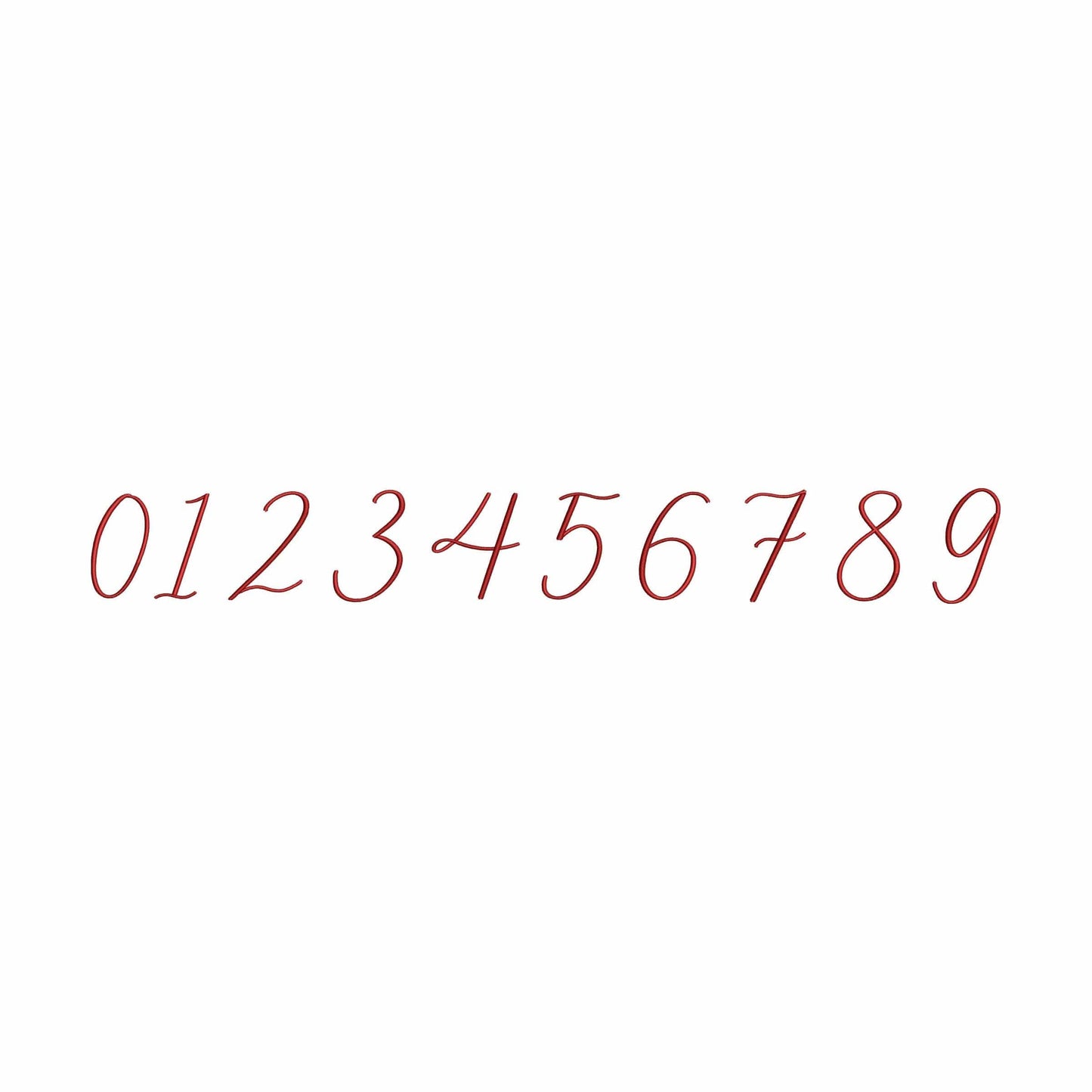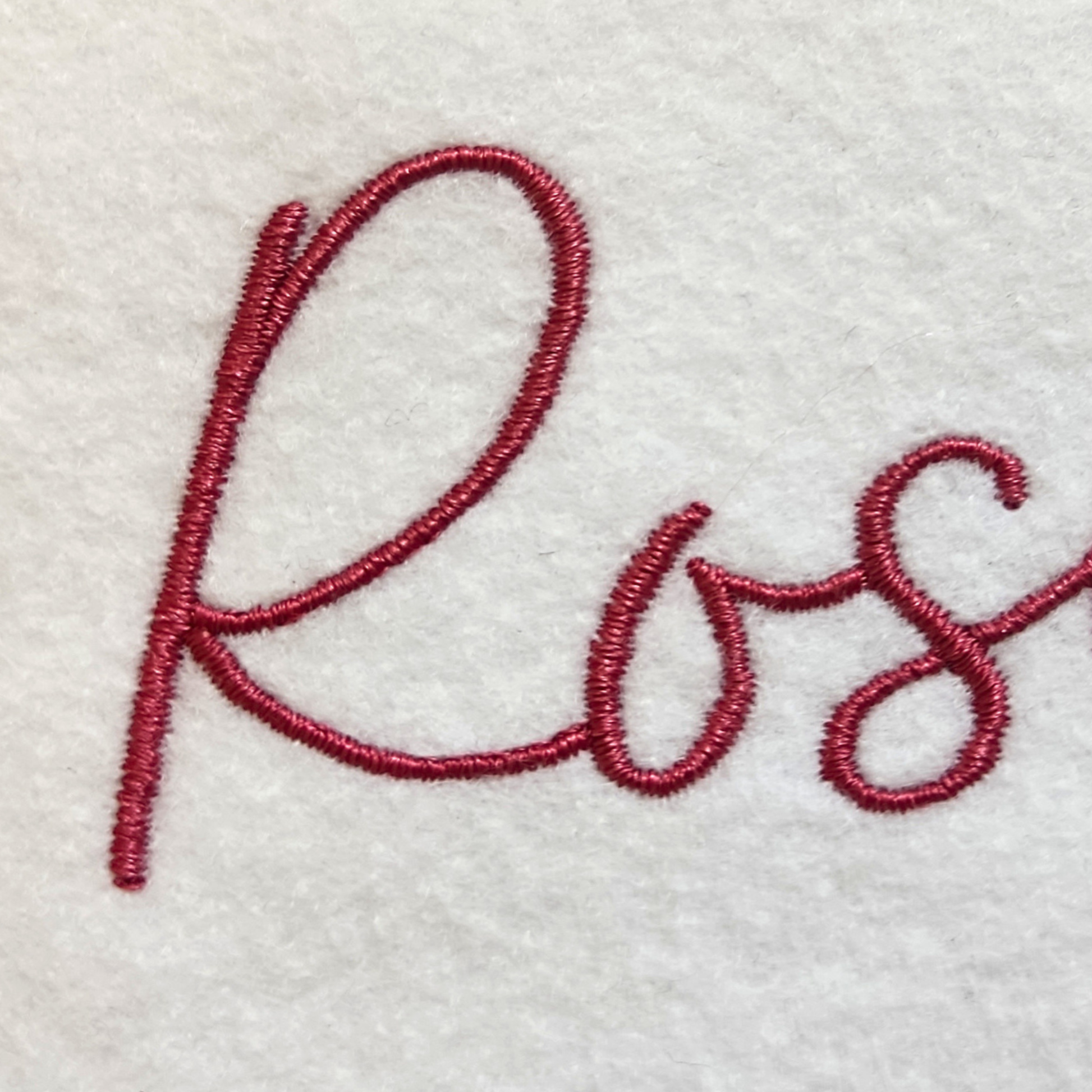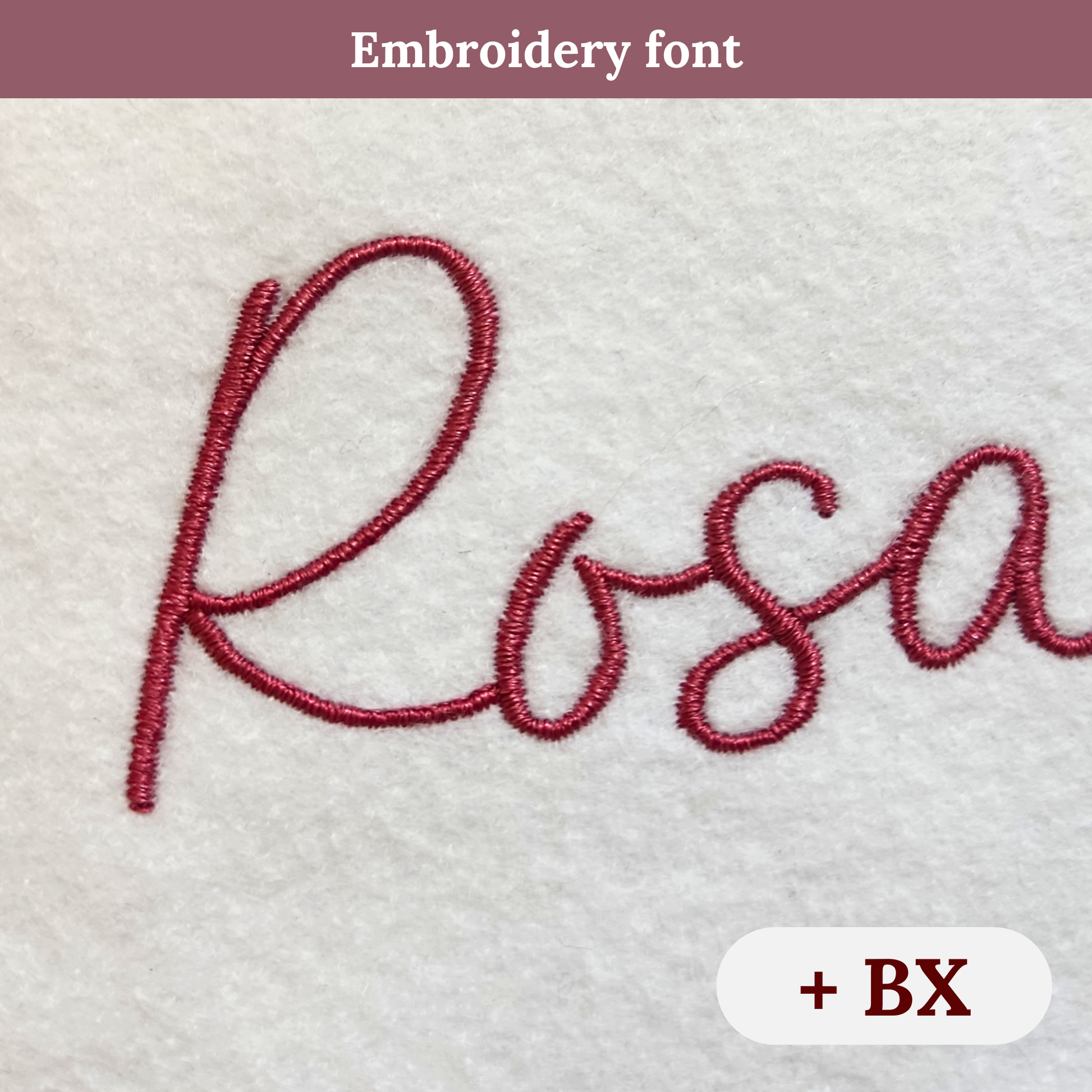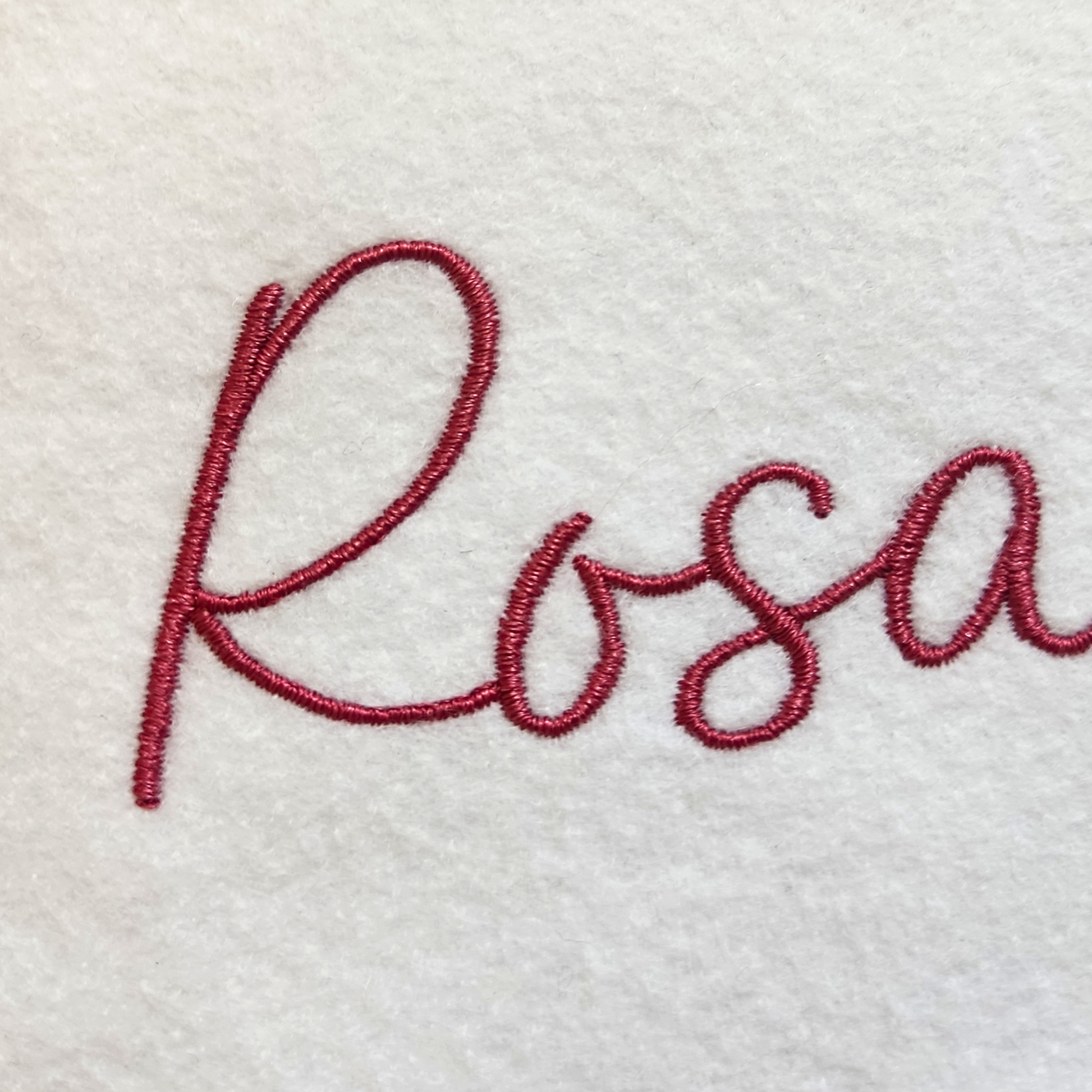
Rosalie - Embroidery font
This machine embroidery font works well for names, shirts, towels, gifts, bags, and stylish personalized embroidery.
A useful digital download for makers who want cursive lettering with a polished modern look for custom projects.